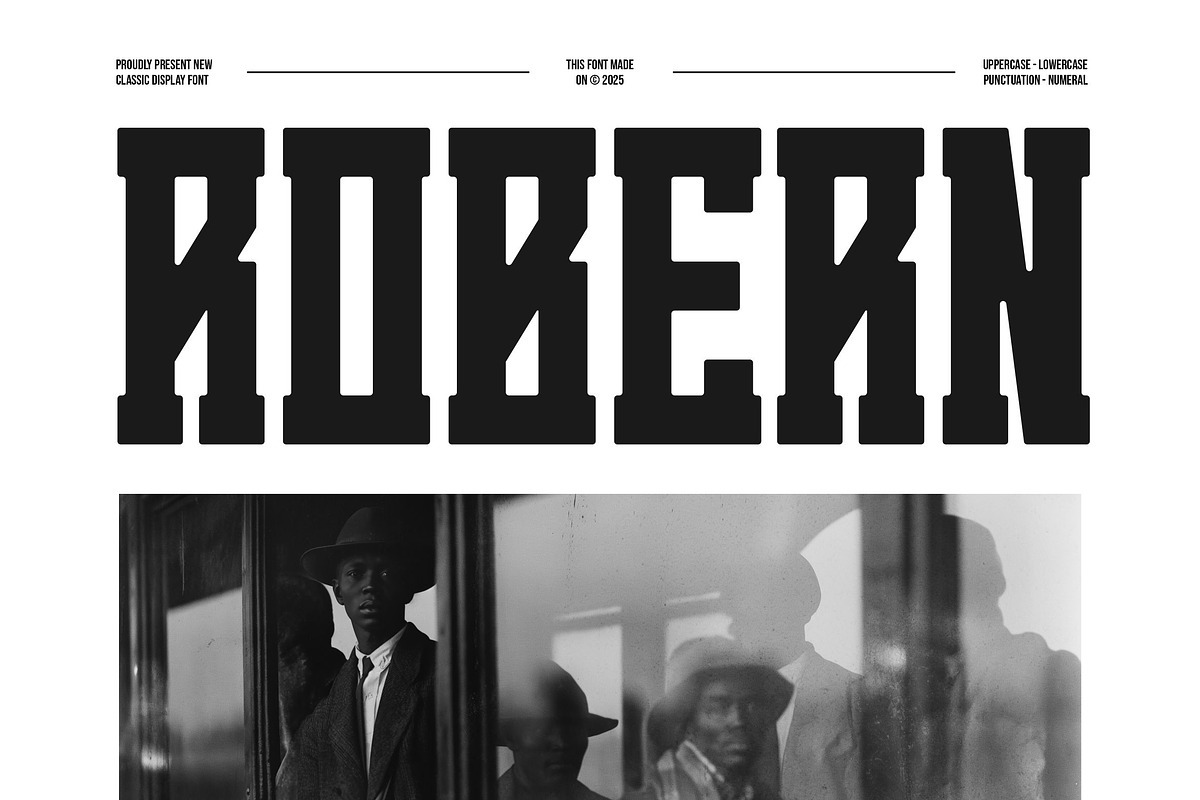
Robern Font
Robern Font is a clean and thoughtfully built typeface that works seamlessly for both professional branding and everyday creative uses. Robern is tall condensed serif Font modern, trendy and stylish. It has a unique character. It is perfect to be combined with invitation card designs, company logos, movie titles, movie names, business cards, book titles, brand names and various other designs.